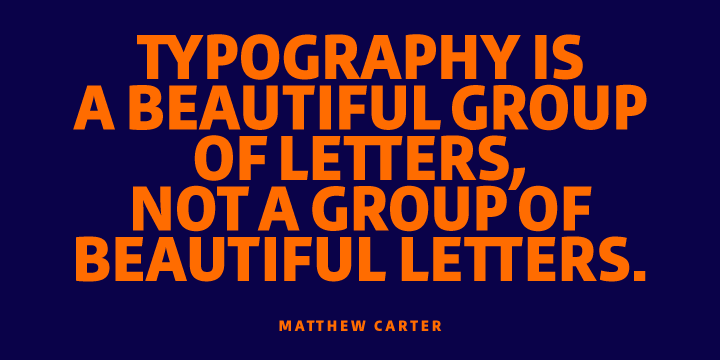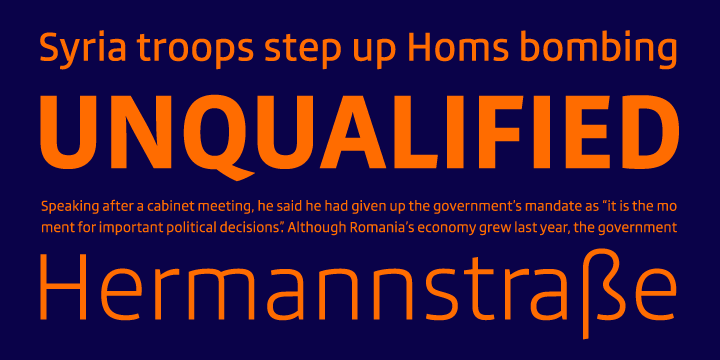
Engrez is a sans serif font family. This typeface has six styles and was published by Indian Type Foundry.
Engrez is a thoroughly modern sans with a softened, simplified lowercase and sturdy, serious caps. It’s well suited for corporate branding and editorial exercises.